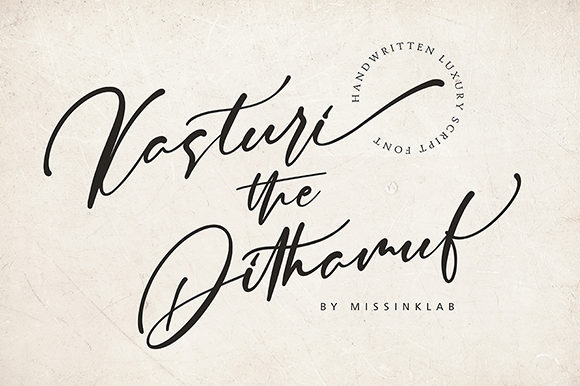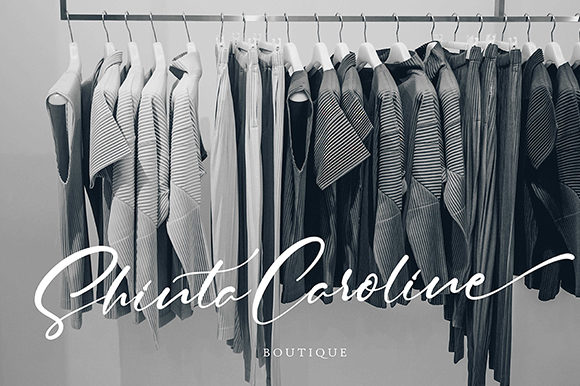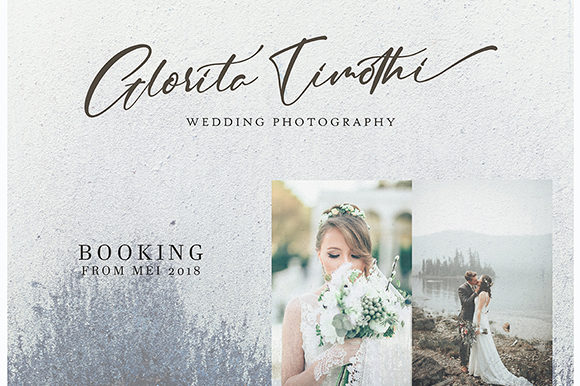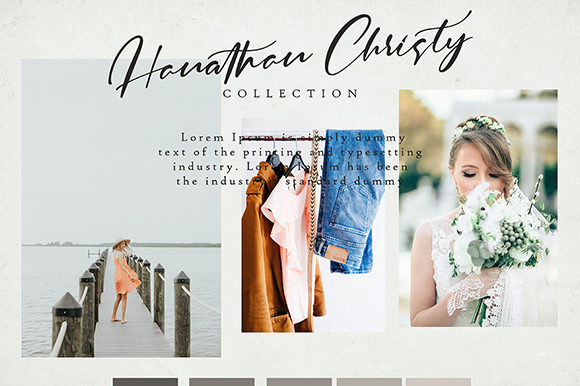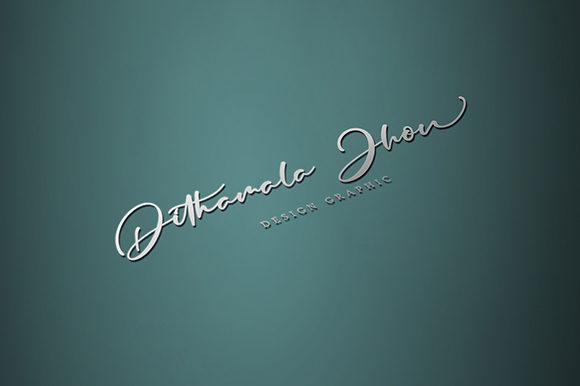
Kasturi Dithamuf Font
About Kasturi Dithamuf Font
Kasturi Dithamuf is an amazingly striking handwritten font with a bold touch. Fall in love with its stunning swashes.